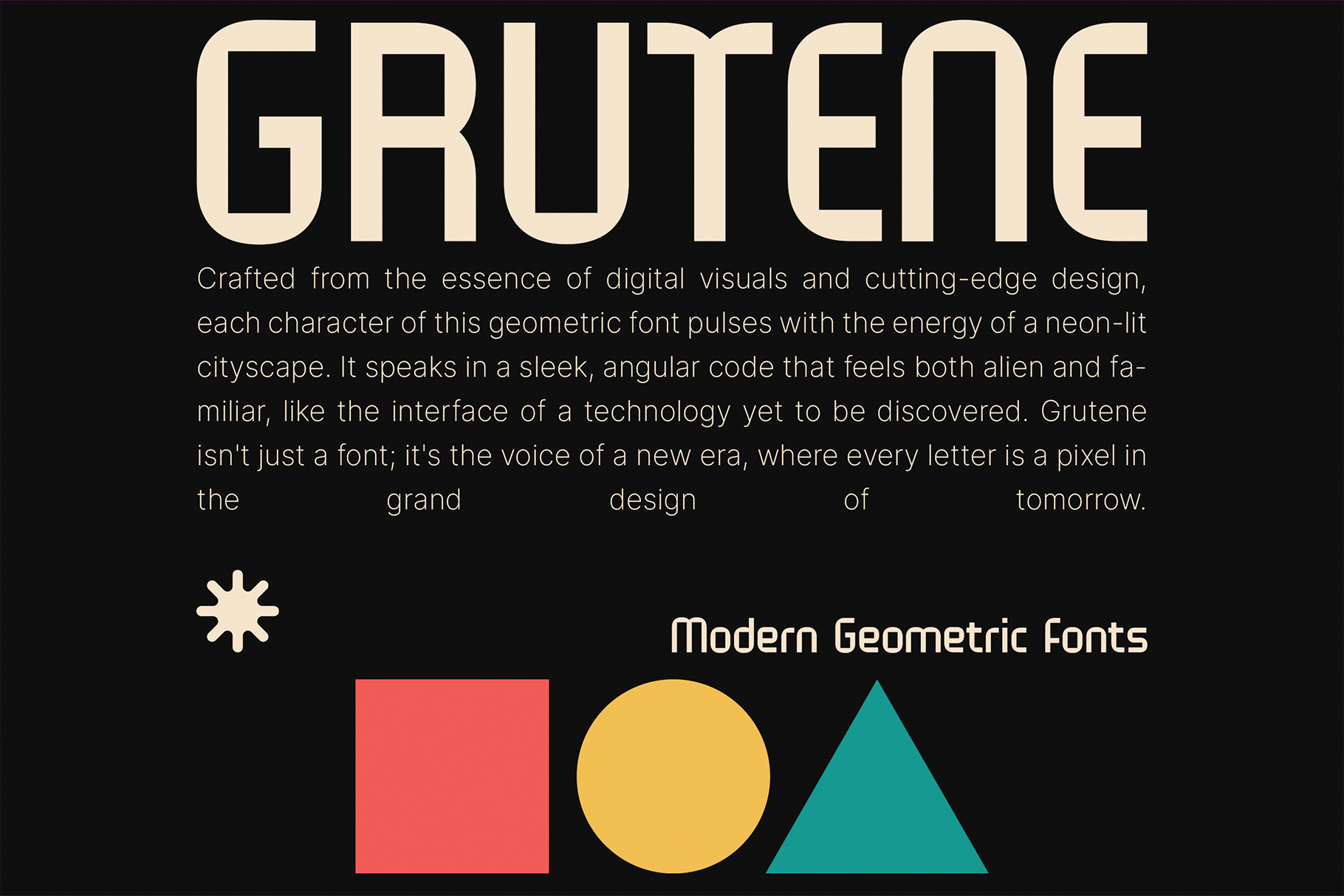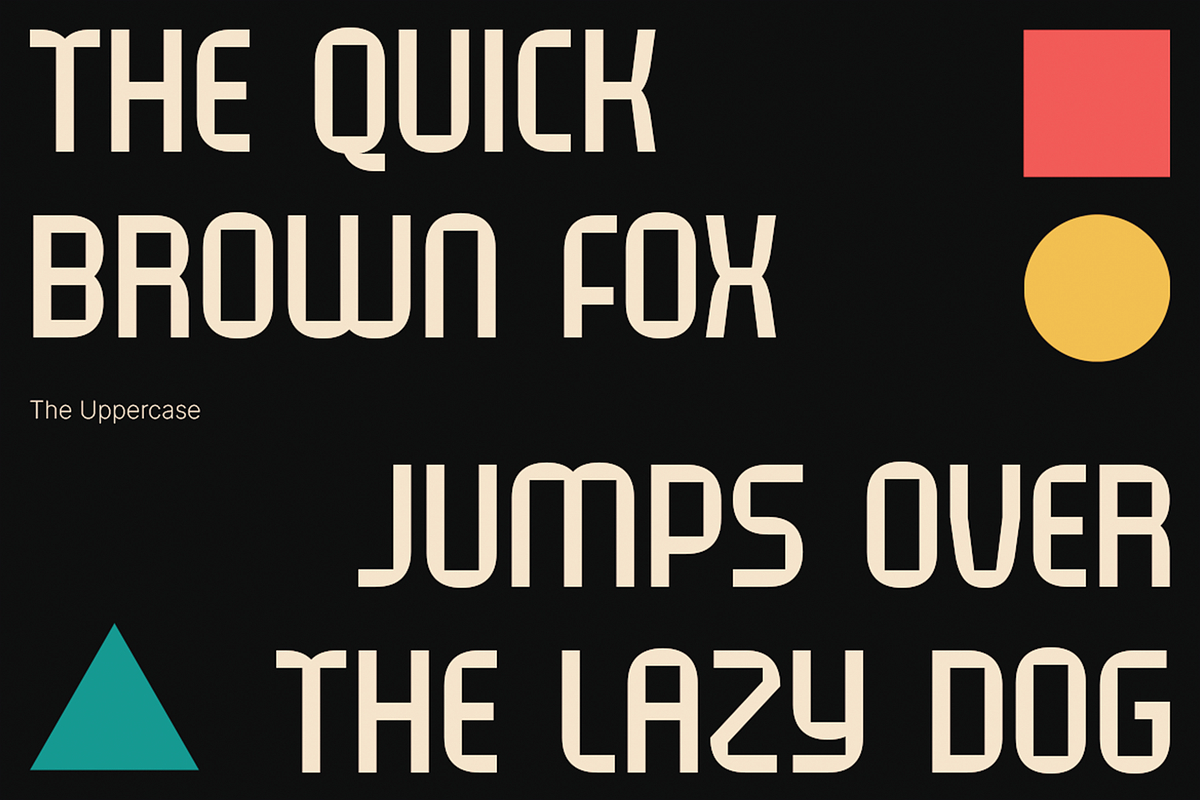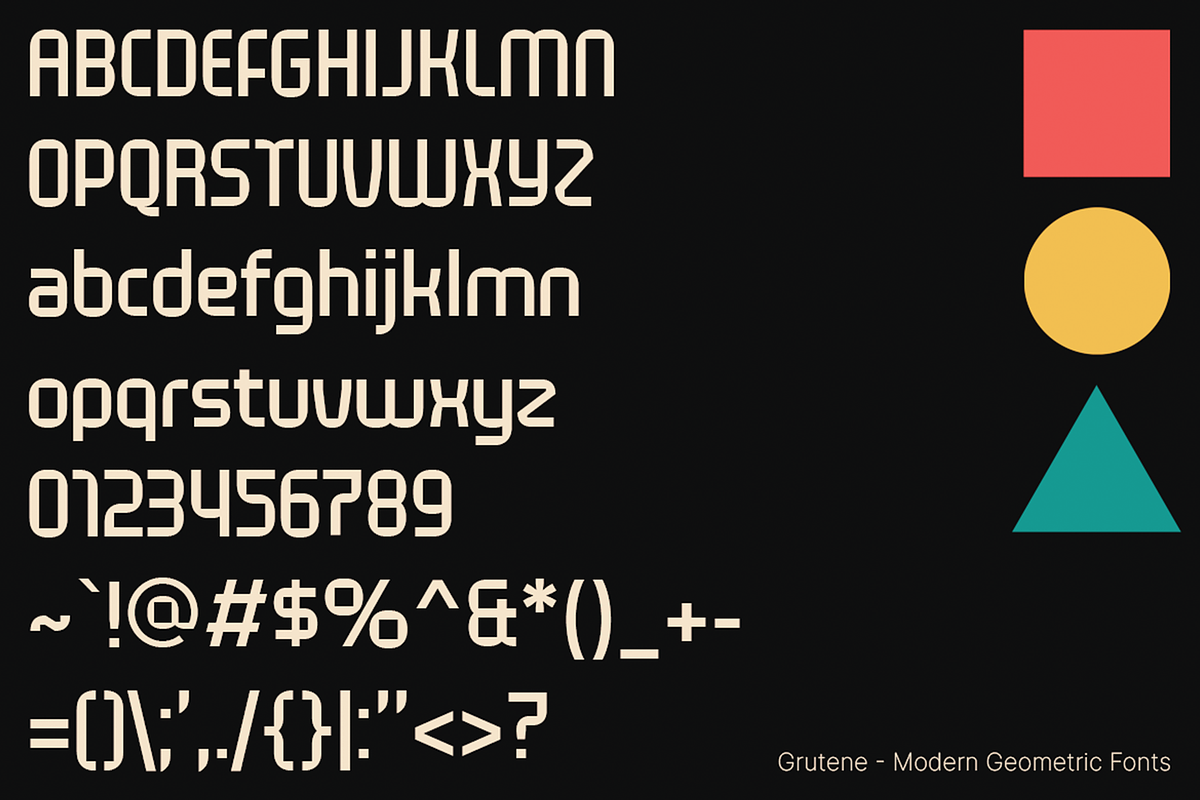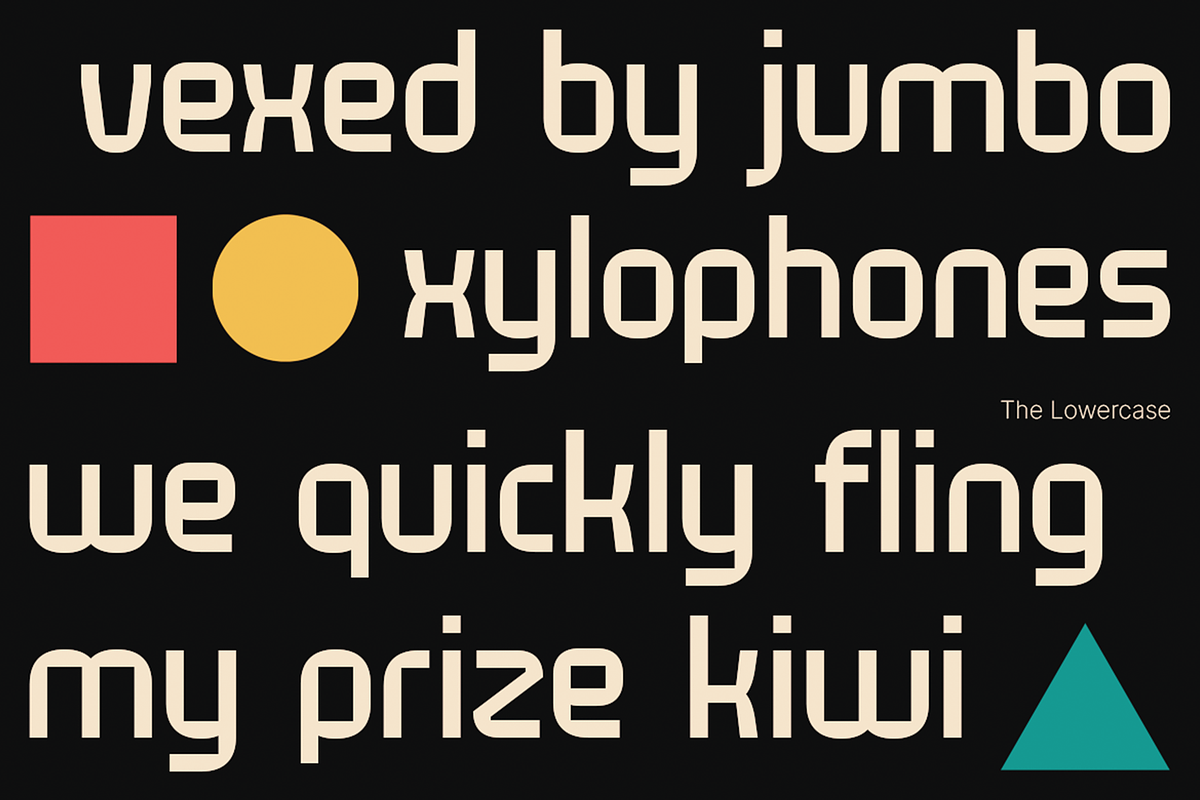
Grutene - Modern Geometric Fonts
Step into the digital era with Grutene, the modern geometric font that’s redefining design. Inspired by cutting-edge visuals, sleek poster layouts, and the immersive worlds of gaming, Grutene is your key to creating impactful, futuristic designs.
With its sharp angles and bold lines, this typeface embodies the essence of tomorrow’s aesthetic. Perfect for tech branding, modern posters, gaming interfaces, and more, Grutene speaks the language of a digital-first world. Make your mark on the future—design with Grutene.